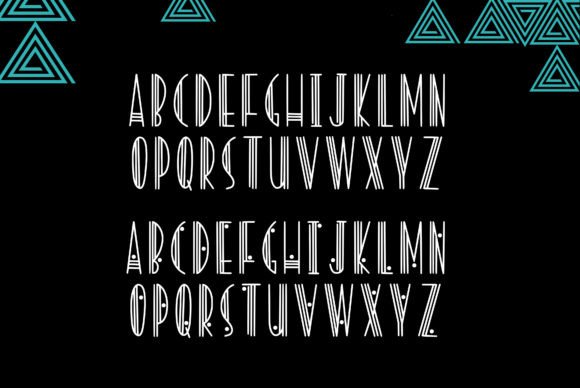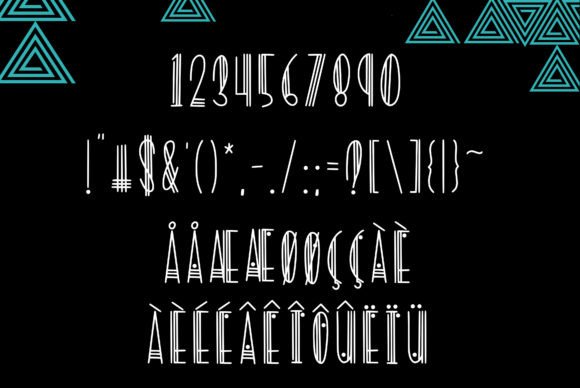
Introduction to Modern Deco Font
As a designer, there’s nothing quite like the thrill of discovering a new font that perfectly captures the essence of your creative project. For me, it was a late-night design session when I stumbled upon the Modern Deco Font – and I knew I’d struck gold. Its sleek lines, geometric accents, and timeless Art Deco style instantly elevated my design from ordinary to extraordinary.
The Modern Deco Font is a game-changer for designers seeking a high-quality, elegant typeface that adds sophistication to any project. With its clean aesthetic and versatility, it’s perfect for everything from fashion and luxury branding to corporate and personal designs. Whether you’re working on digital media or printed projects, this font ensures a consistent, high-quality look that’s hard to achieve with more generic fonts.
What’s more, the Modern Deco Font is available for free download, making it an invaluable design resource for creatives of all levels. Its transparent background allows for seamless integration with your designs, and the inclusion of special characters and accents means you can use it across multiple languages. Whether you’re a seasoned pro or just starting out, the Modern Deco Font is an absolute must-have for any designer looking to take their work to the next level.
Key Features of Modern Deco Font
- High-quality font designed for creative projects, offering a unique and stylish look.
- Features a clean and modern design, perfect for creating eye-catching headings and titles in various design projects.
- Designed to be highly legible and versatile, making it an excellent choice for a wide range of creative projects.
Honest Review: Modern Deco Font
As a designer, I’m always on the lookout for unique and high-quality design resources. Recently, I stumbled upon the Modern Deco Font and was excited to give it a try. Here’s my honest review.
- ✨ The font is incredibly versatile and can be used for a variety of creative projects, from graphic design to web development.
- ✨ The high-quality design is evident in every aspect of the font, from the sleek lines to the intricate details.
- ⚠️ The font is limited to a specific style, which may not be suitable for every design project.
Overall, I’m impressed with the Modern Deco Font and would definitely recommend it to fellow designers. While it may have some limitations, its unique style and high-quality design make it a valuable addition to any design resource collection.
To get the most out of the Modern Deco Font, use it sparingly to add emphasis to key points in your design. Common use cases include creating invitations, business cards, or social media graphics.